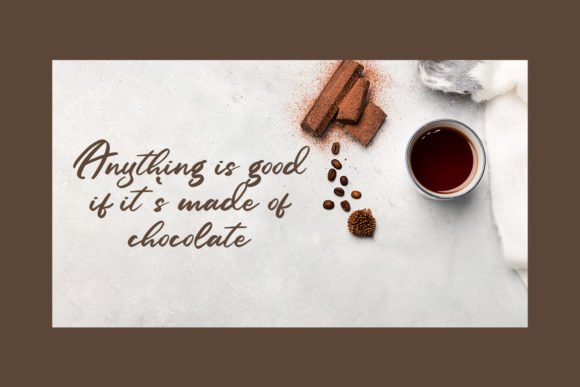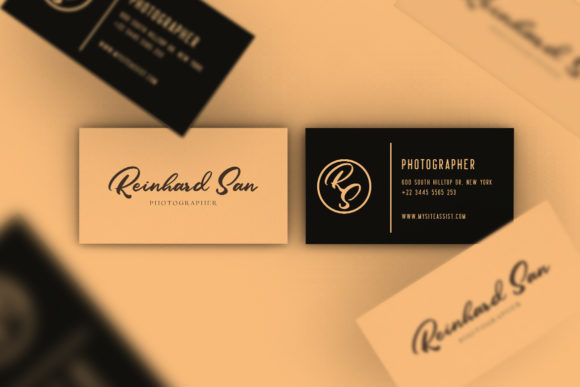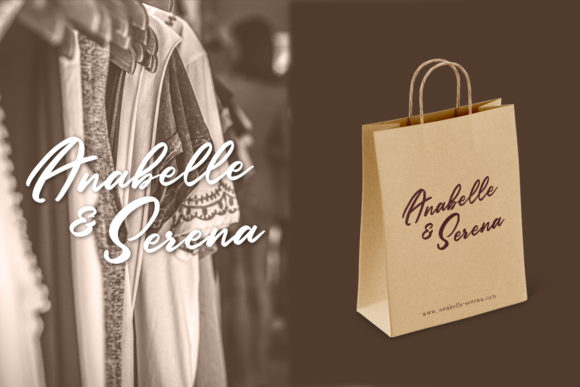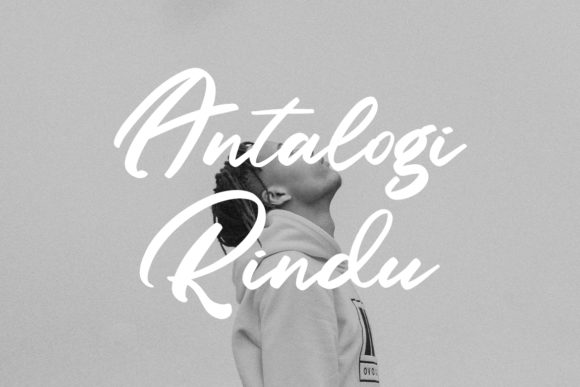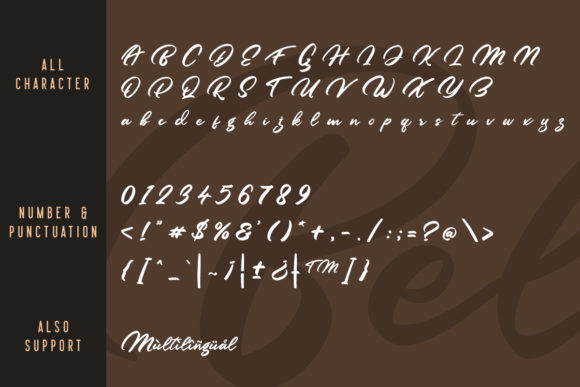
Belardigo Font
About Belardigo Font
Belardigo feels equally charming and elegant. This handwritten font is the perfect fit for all of your logos, branding, social media, and crafty DIY projects.